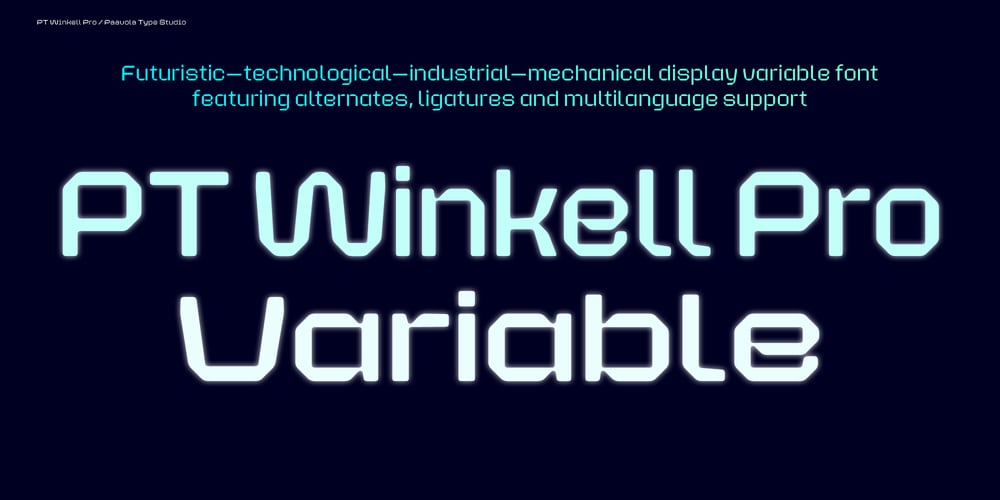
PT Winkell Pro Variable Font Family was designed by Jani Paavola and published by Paavola Type Studio. PT Winkell Pro Variable contains 1 styles and family package options. PT Winkell Pro is a futuristic and technological variable font with width, weight and italic axis’. Based on a font family of 50 fonts (five weights of five widths + italics) featuring alternates, ligatures, multilanguage support.PT Winkell Pro is advanced version of Winkell, a font published 2021. Heavily inspired by dystopian futuristic settings in science fiction especially subgenres like cyberpunk and other futuristic visuals. Simple display design based on straight forms connected by 45° rounded angles.